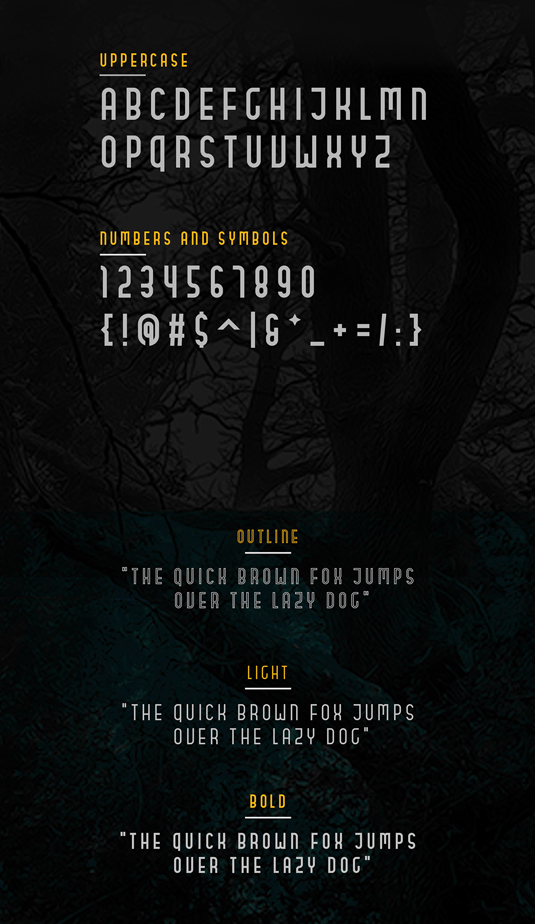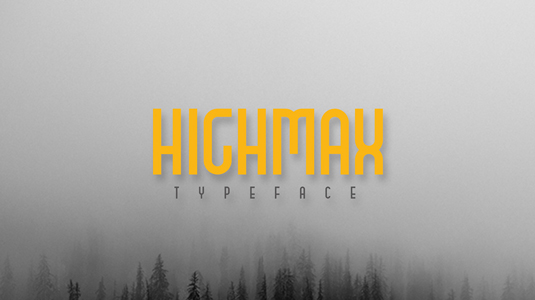
Font of the day: Highmax
Highmax by Jabir
A junior designer who simply goes by the name of Jabir J3 kicks off our font of the day posts this week with his latest creation, Highmax. A condensed display typeface, Highmax is great for titles, posters and much more.